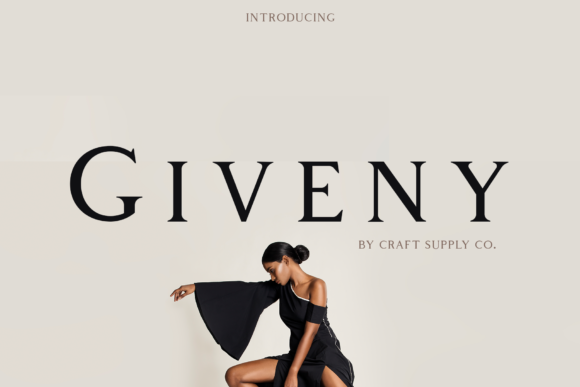
Unleash the allure of Giveny Font, a serif masterpiece that exudes elegance and sophistication. Designed by the skilled artisans at craftsupplyco, Giveny Font is a stunning fusion of pure geometry and optical balance, captivating every beholder with its timeless beauty.
Immerse yourself in the world of Giveny, where classicism and modernity intertwine seamlessly. Let your imagination soar as you explore the wide range of styles, from logos to greeting cards, quotes to posters, and everything in between. Unleash your creativity and crafting expertise and allow Giveny to elevate your designs beyond the ordinary.
With Giveny Font, you'll discover a treasure trove of enchanting possibilities. Each letterform has been meticulously crafted to convey a message of refinement and luxury. The distinctive features of Giveny, including the graceful curves and subtle serifs, evoke a sense of timeless elegance that will elevate your designs and leave a lasting impression on your audience.
Transport yourself to an era of artistic brilliance as you witness the remarkable versatility of Giveny Font. Suitable for a myriad of projects, including logos, branding, name cards, stationery, and so much more, Giveny seamlessly adapts to your creative vision. With its inherent ability to accentuate the beauty of words, Giveny transforms simple text into a captivating symphony of visual appeal.
Harness the power of Giveny Font and unlock a new realm of creative expression. Its harmonious blend of tradition and innovation will add a touch of refinement to your designs and capture the hearts of your audience. Embrace the allure of Giveny Font today and embark on an artistic journey like never before.